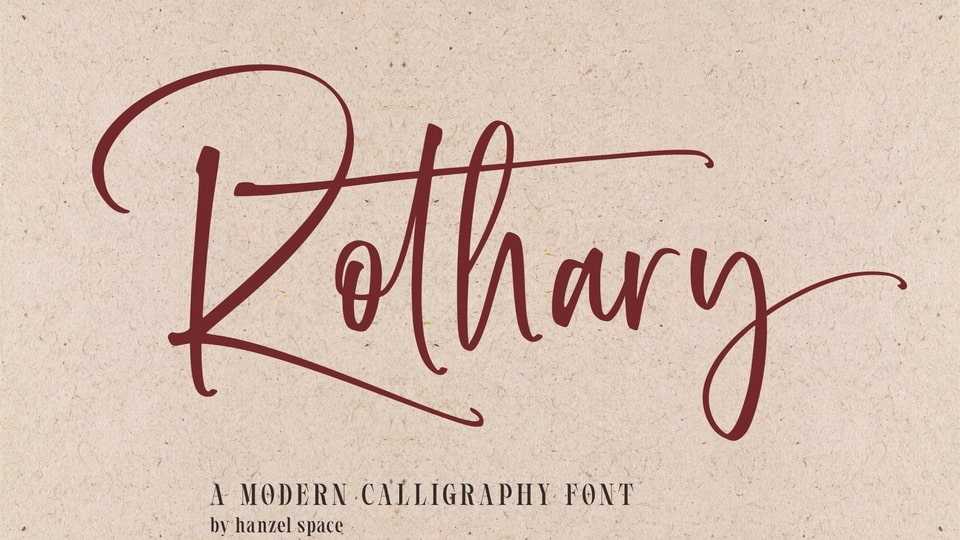
Download Rothary Script font, a handwritten typeface with contemporary, sophisticated accents. It is perfect for branding, wedding invites, tagline, cards.